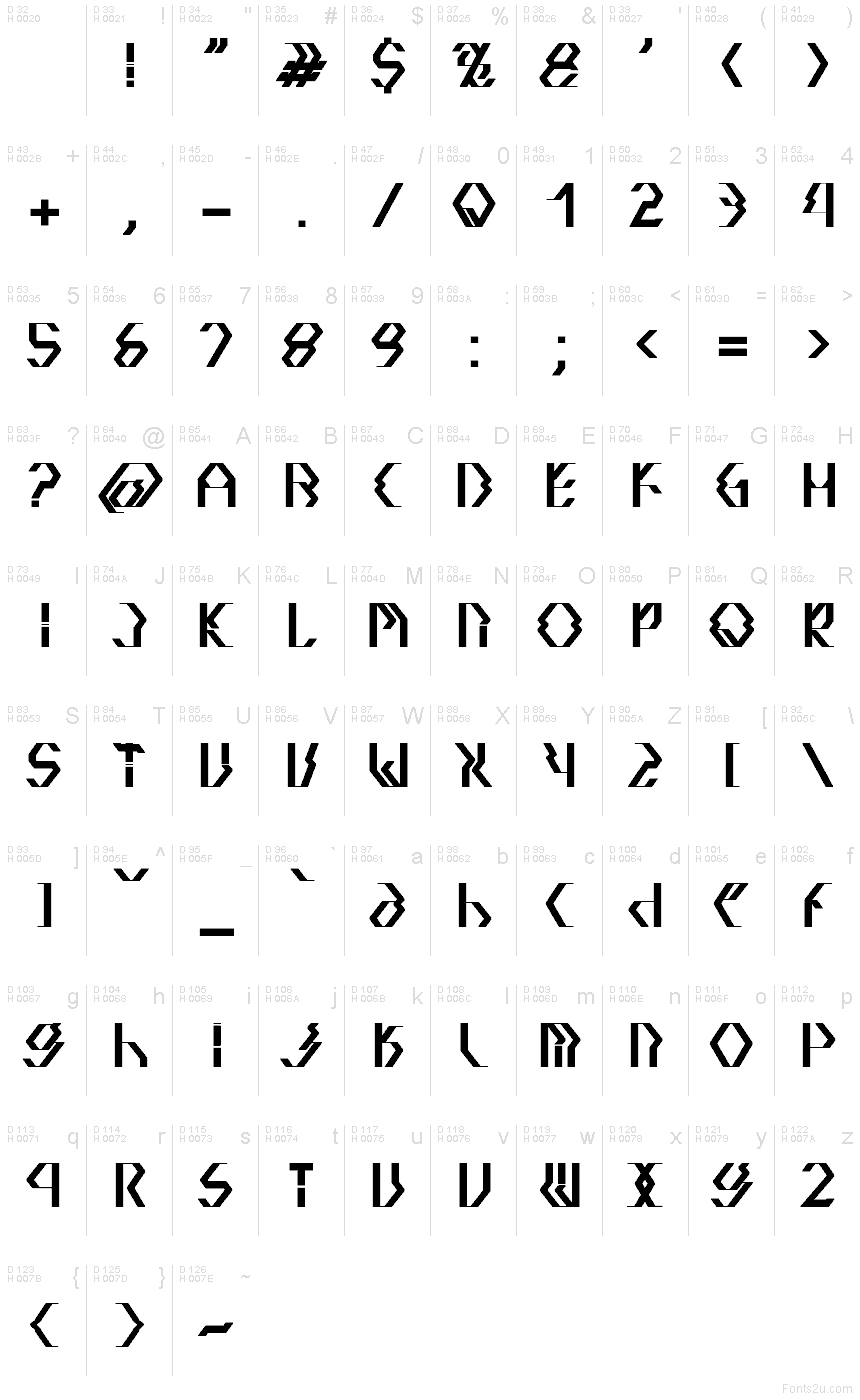
Quadtron font by Dhabee Studio is a free futuristic display typeface that looks like it’s been cut from glowing circuit boards. Its chunky, angular strokes and squared-off curves form a tight, almost labyrinthine rhythm that instantly reads as sci-fi and high-tech. The generous counters and consistent stroke weight keep it bold and legible, even as the letterforms twist into those distinctive geometric silhouettes.
Using Quadtron, your work snaps straight into cyberpunk mode-think game logos, sci-fi movie titles, esports branding, tech event posters, album covers, or UI headers for futuristic dashboards. This free font thrives at large sizes where its sharp corners and beveled turns can really show off. For body copy or smaller labels, pair Quadtron with a plain geometric sans to let its wired, industrial voice stay in the spotlight.